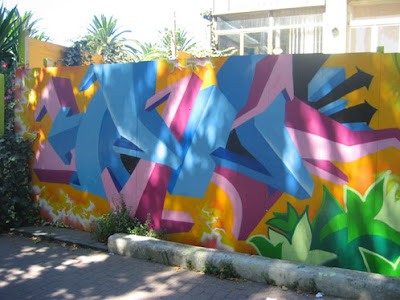
ARROW GRAFFITI ALPHABETS can be the right choice for making the space occupied. Graffiti alphabets on this picture really making its impact in the good way. Just look at the arrowed alphabets that choose as the writing style. Getting the space fill up in each direction keep the attention stay by the wall. Tracing arrow alphabets with blue and pink colored theme get this graffiti in to another level of attraction leading. Gradation of each colors by the alphabets, trick the eyes for the 3D looks. For contrast looks, yellow color filling the background with more level to up grade in the appearance. Whole graffiti looks tempting.